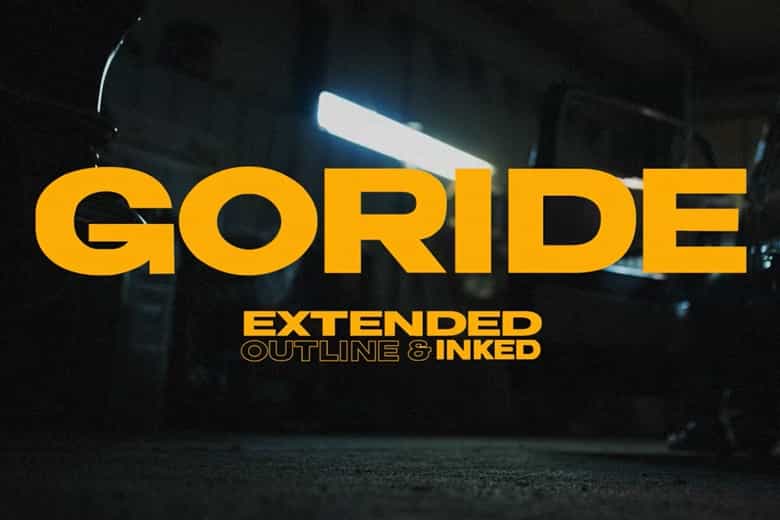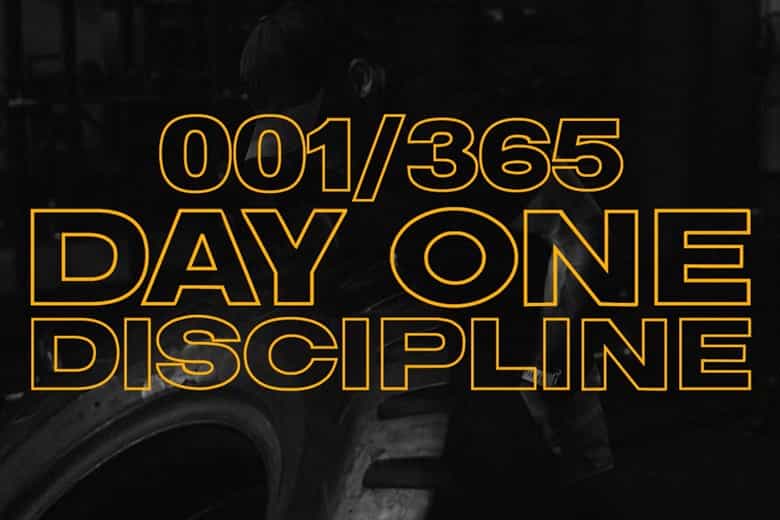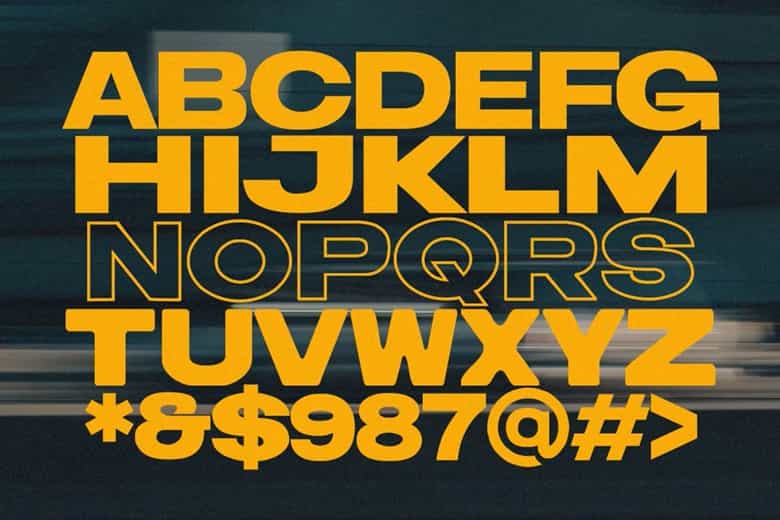
Goride is a contemporary flexible sans serif display typefaces to boost the visual appeal of video thumbs, poster, magazines and many others. It has clean lines and modern look, which allows it to grab attention while still being readable on different platforms and different sizes of the screens.